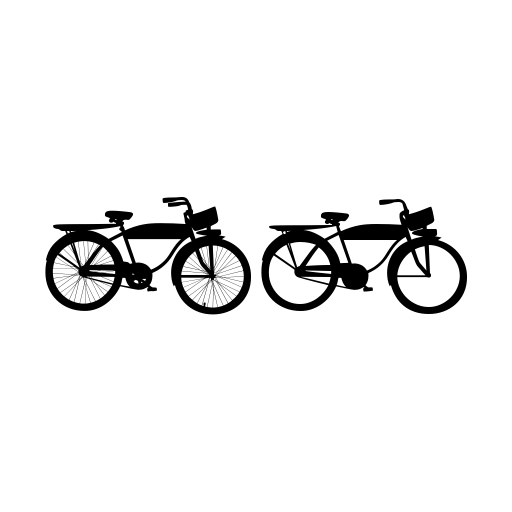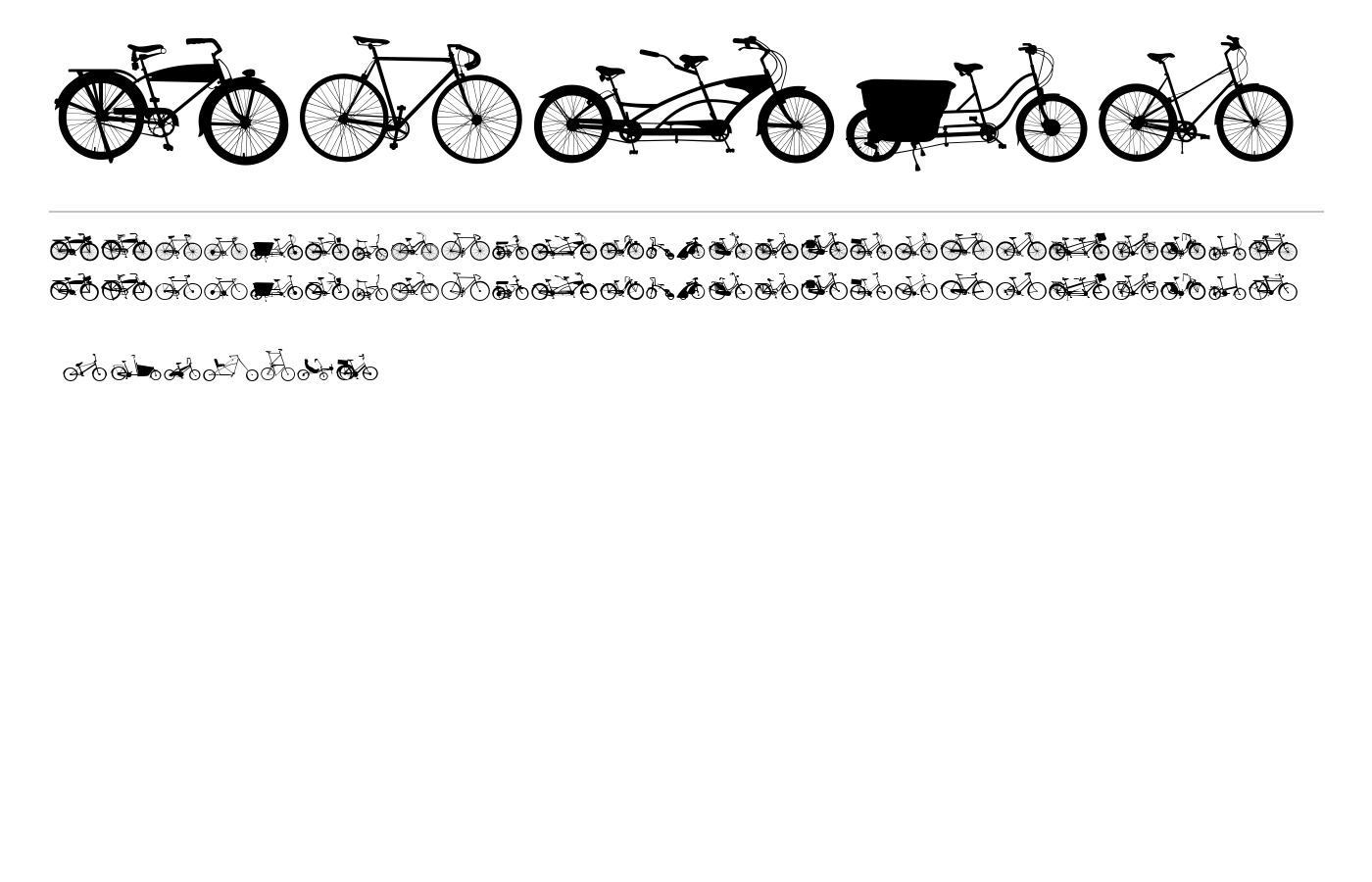
The BIKES font is a unique decorative typeface that uses detailed black silhouette illustrations of various bicycle styles instead of traditional letterforms. This playful and distinctive font is perfect for projects related to cycling, sports, or outdoor lifestyles, adding visual interest and charm to logos, posters, and themed designs where a creative and fun touch is desired. Its highly specific pictorial style makes it best suited for display use rather than body text.
BIKES Font
About BIKES Font